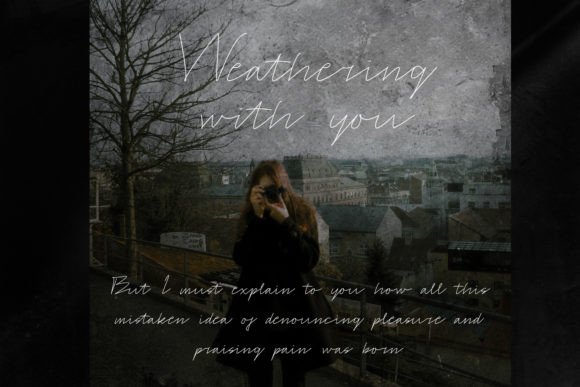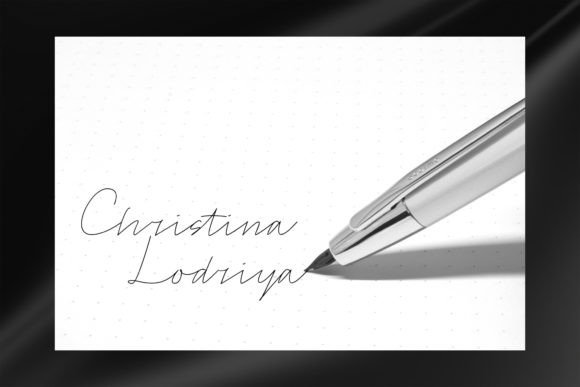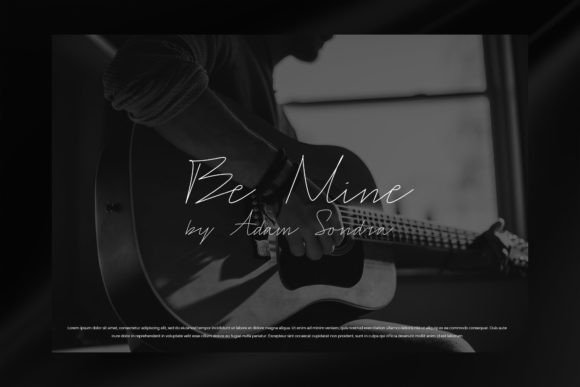
Introduction to Signotera Font
Have you ever been working on a creative project, pouring your heart and soul into every detail, only to realize that the perfect font is missing? For designers, this is a common frustration. But what if I told you that there’s a font that can elevate your design to the next level? Enter the Signotera Font, a delicate, elegant, and flowing handwritten font that’s about to become your new best friend.
With its beautiful and well-balanced characters, Signotera Font is the perfect design resource for any creative project. Whether you’re working on a blog post, a logo design, or a social media graphic, this font is sure to impress. And the best part? It’s a high-quality font that can be used on a transparent background, giving you the flexibility to design freely.
Key Features of Signotera Font
- High-quality design resource ideal for creative projects, offering a unique and stylish aesthetic.
- Features a transparent background, allowing for seamless integration with any design or background.
- Designed to be versatile, suitable for use in a wide range of creative applications, from digital art to print media.
- Includes a comprehensive character set, covering a wide range of languages and characters.
- Size: The font family consists of multiple weights and styles, offering a range of options to suit different design needs.
Honest Review: Signotera Font
I recently came across the Signotera Font, and I’m excited to share my honest review with you. As a designer, I’m always on the lookout for high-quality design resources that can elevate my creative projects.
- High-quality design: The Signotera Font is beautifully crafted, with a unique and stylish aesthetic that’s perfect for modern designs.
- Transparent background: The font’s transparent background allows for seamless integration with other design elements, making it a great choice for complex designs.
- Limited character set: The Signotera Font has a relatively small character set, which may limit its use in certain creative projects.
- No bold or italic variants: While the font is stylish, it’s missing bold and italic variants, which can be limiting for designers who need to create emphasis or headings.
Overall, the Signotera Font is a great addition to any designer’s toolkit, offering a high-quality, modern aesthetic at no cost. While it has some limitations, its unique style and transparent background make it a valuable resource for creative projects.
The Signotera Font is a versatile design resource that can be used in a variety of creative projects, including logos, social media graphics, presentations, and documents. Its high-quality design and transparent background make it a great choice for designers who want to add a touch of elegance to their work.
Yes, the Signotera Font is designed with a transparent background, making it ideal for use in graphic design, digital art, and other creative projects where a transparent font is required. This feature allows you to easily combine the font with other design elements and backgrounds.